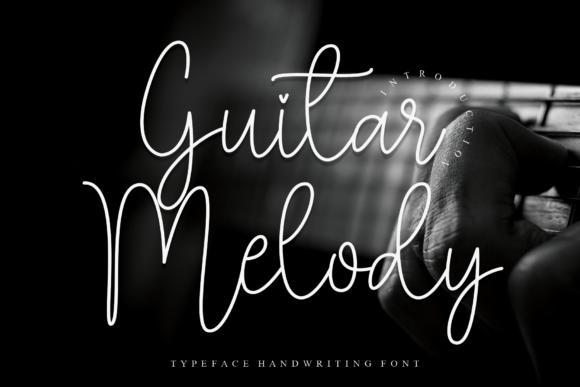
Welcome to the world of Guitar Melody Font, where elegance meets creativity, and your words transform into captivating melodies. This script font, meticulously crafted by Misterletter.co, is a masterpiece designed to elevate your designs and leave a lasting impression on your audience.
Unleash the Beauty of Your Creations:
Guitar Melody Font is a symphony of sophistication, perfectly suited for script reading. Its graceful curves and flowing lines will captivate your readers, drawing them into the enchanting world of your words. Whether you're crafting a heartfelt letter, designing an eye-catching poster, or creating a visually stunning website, this font will effortlessly add a touch of elegance and charm to your designs.
Experience the Versatility of Expression:
With Guitar Melody Font, the possibilities are endless. Its versatility extends far beyond script reading, making it an ideal choice for a wide range of creative projects. From wedding invitations to social media posts, from logos to branding materials, this font possesses the remarkable ability to adapt and enhance any design concept. Let your imagination soar as you explore the countless ways to incorporate this exquisite font into your creative endeavors.
Embrace the Artistry of Details:
Guitar Melody Font is a testament to the power of meticulous craftsmanship. Each letterform has been carefully designed and refined, resulting in a font that is both visually stunning and highly legible. The intricate details and subtle flourishes add depth and character to your designs, ensuring that your message is not just read, but experienced.